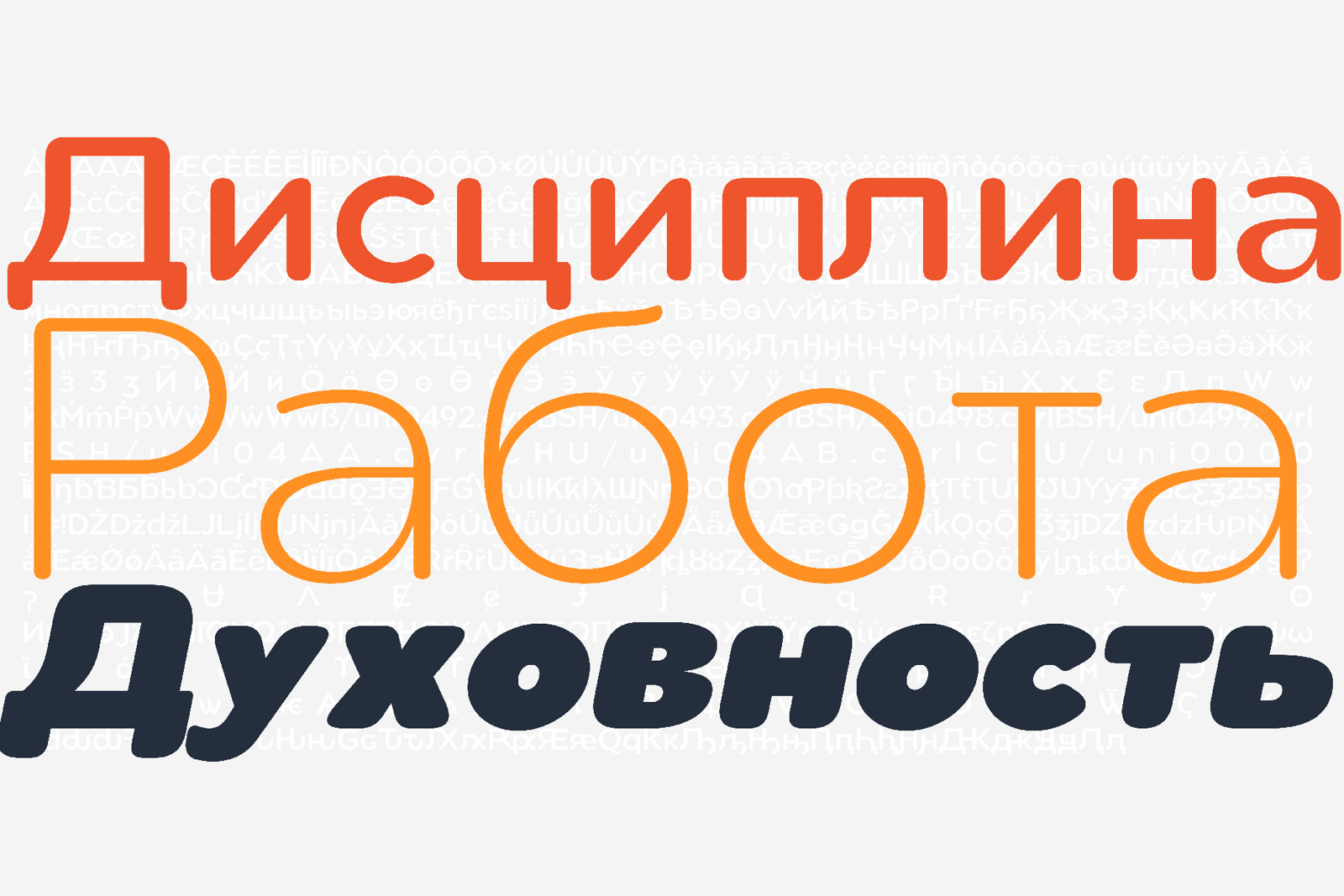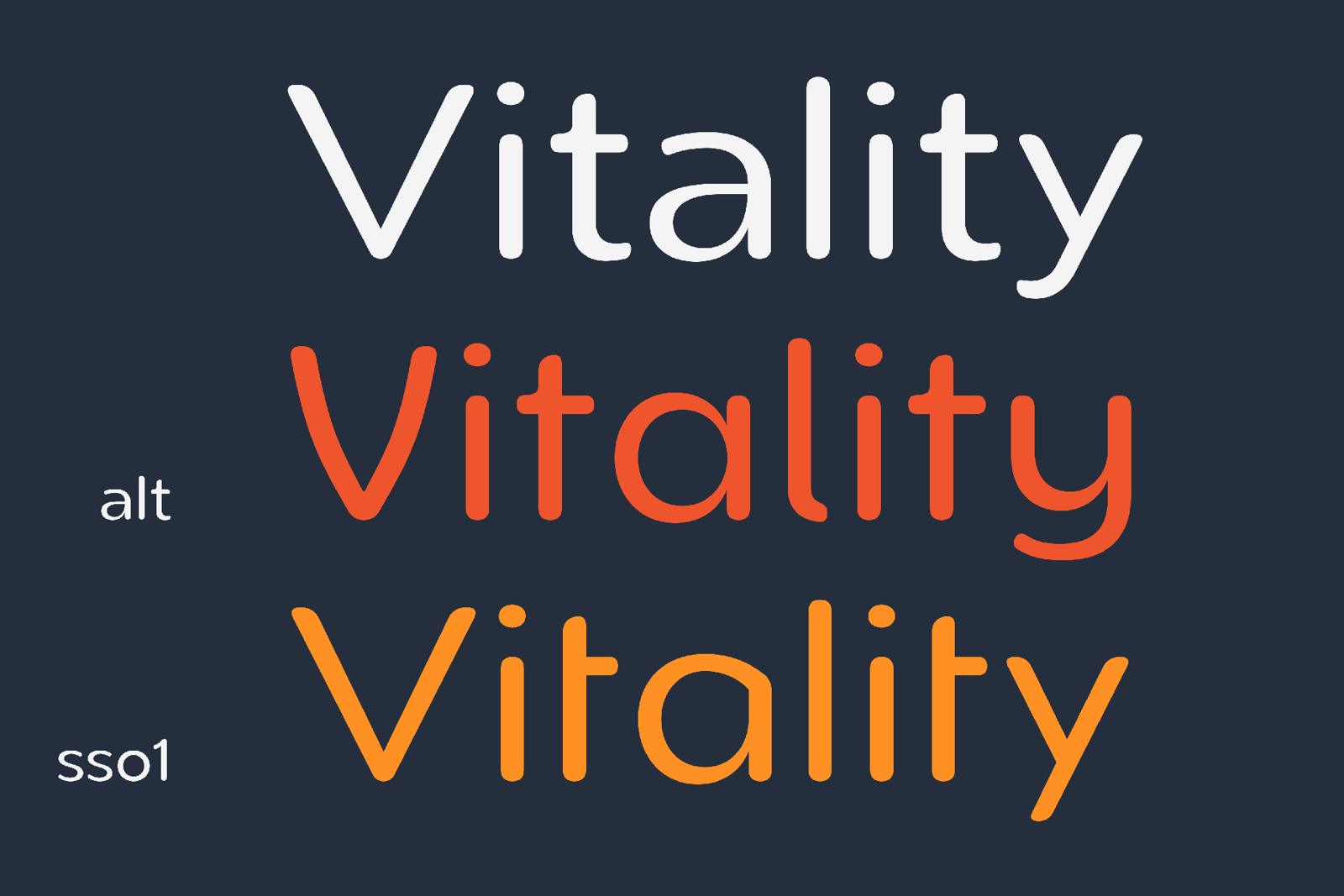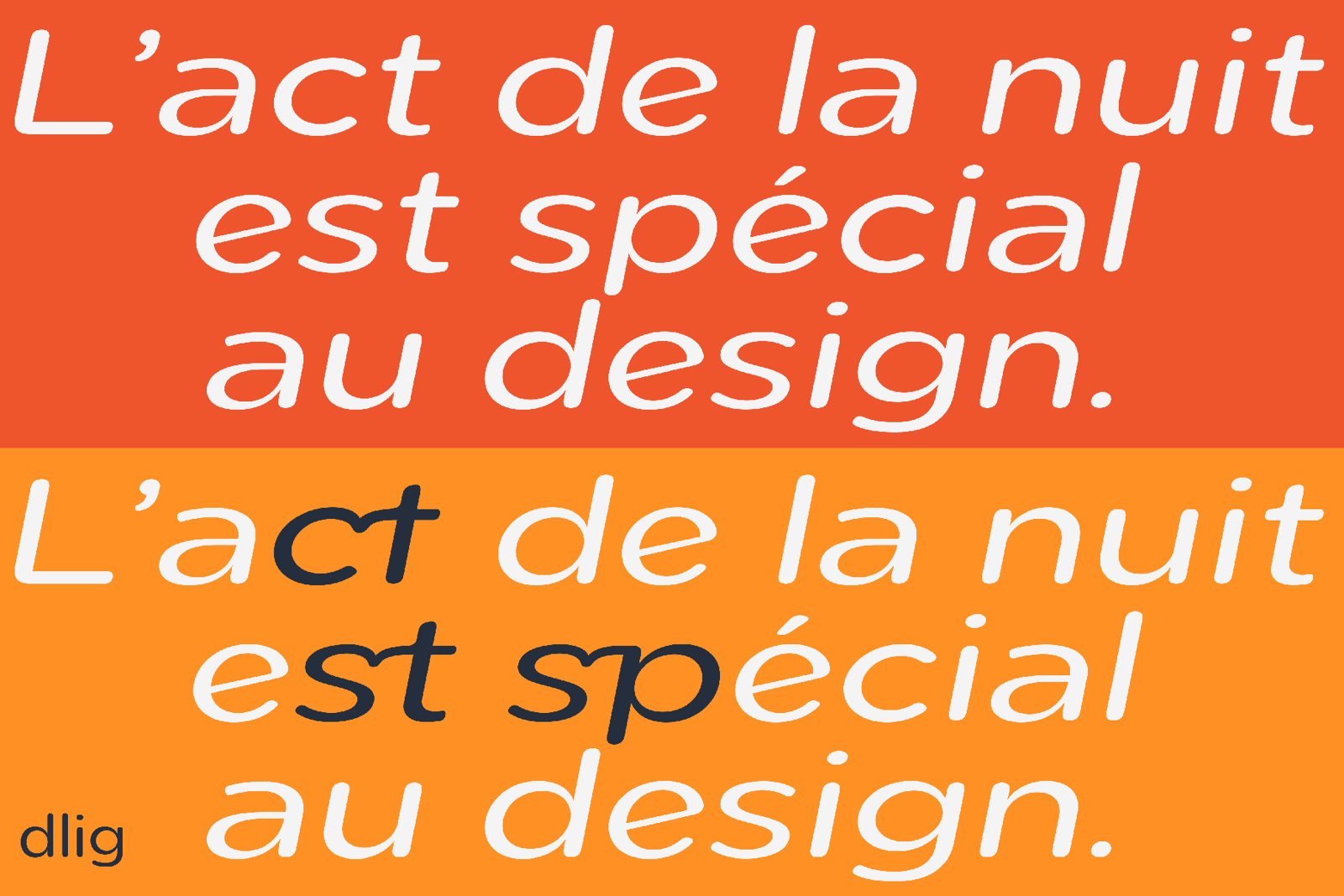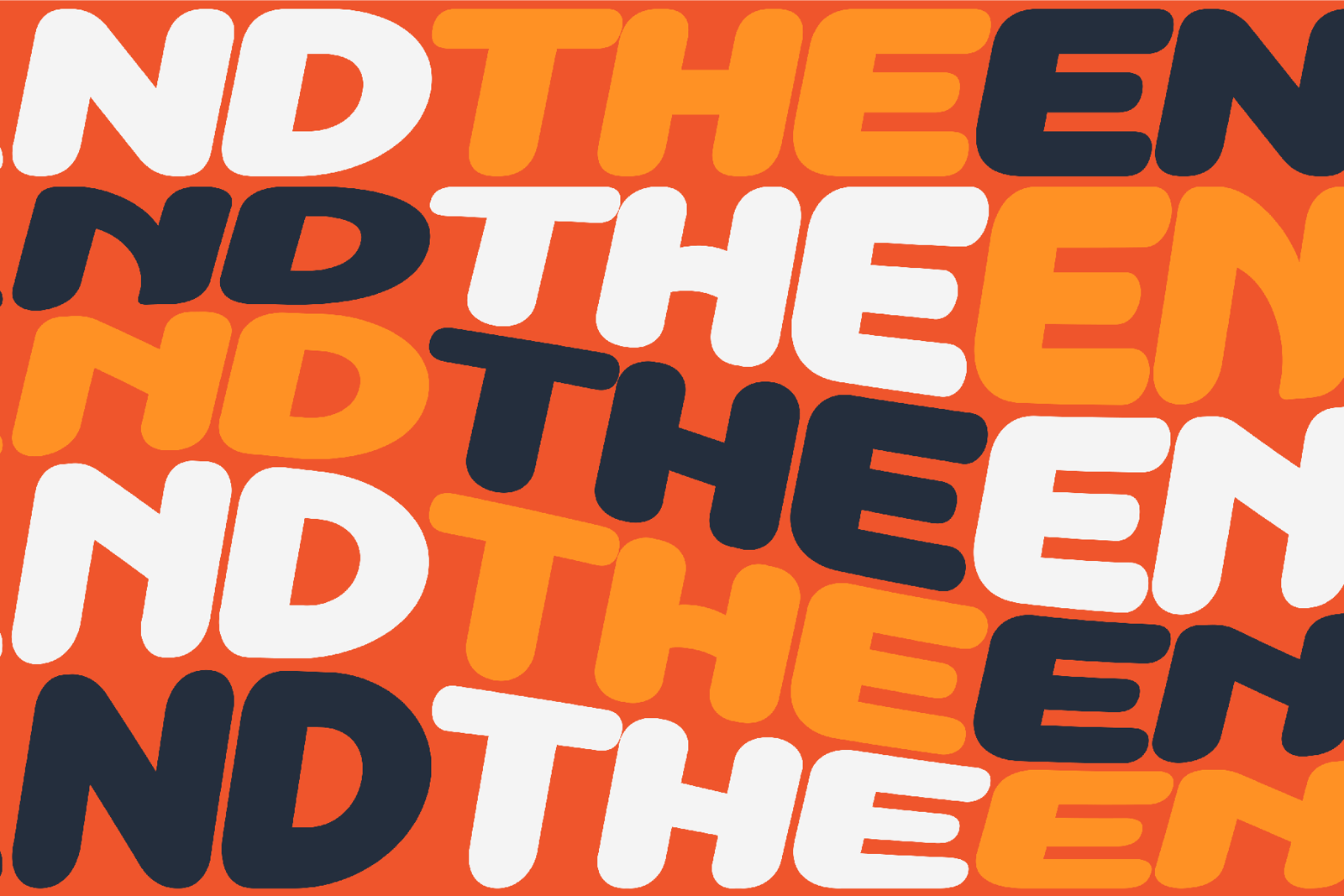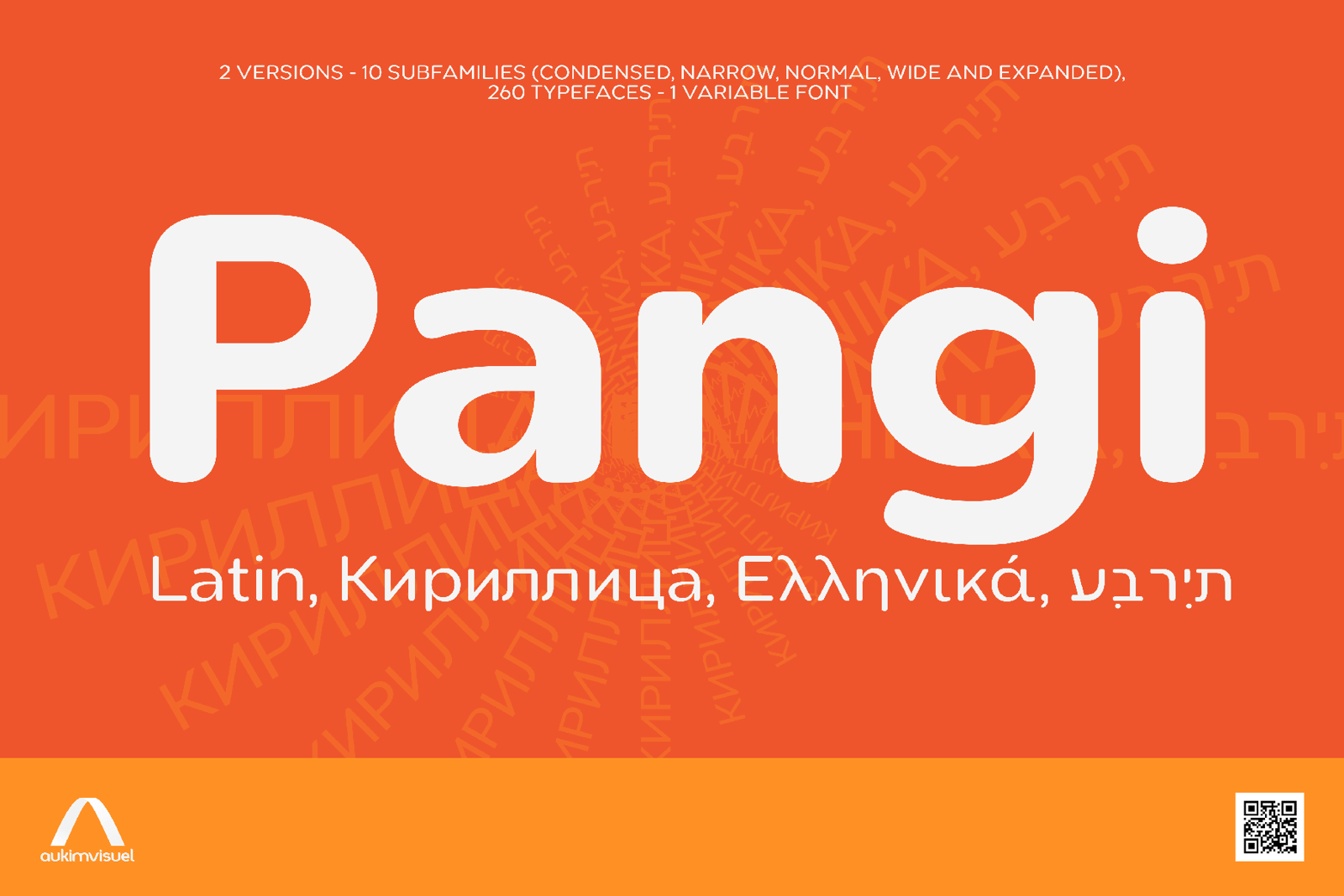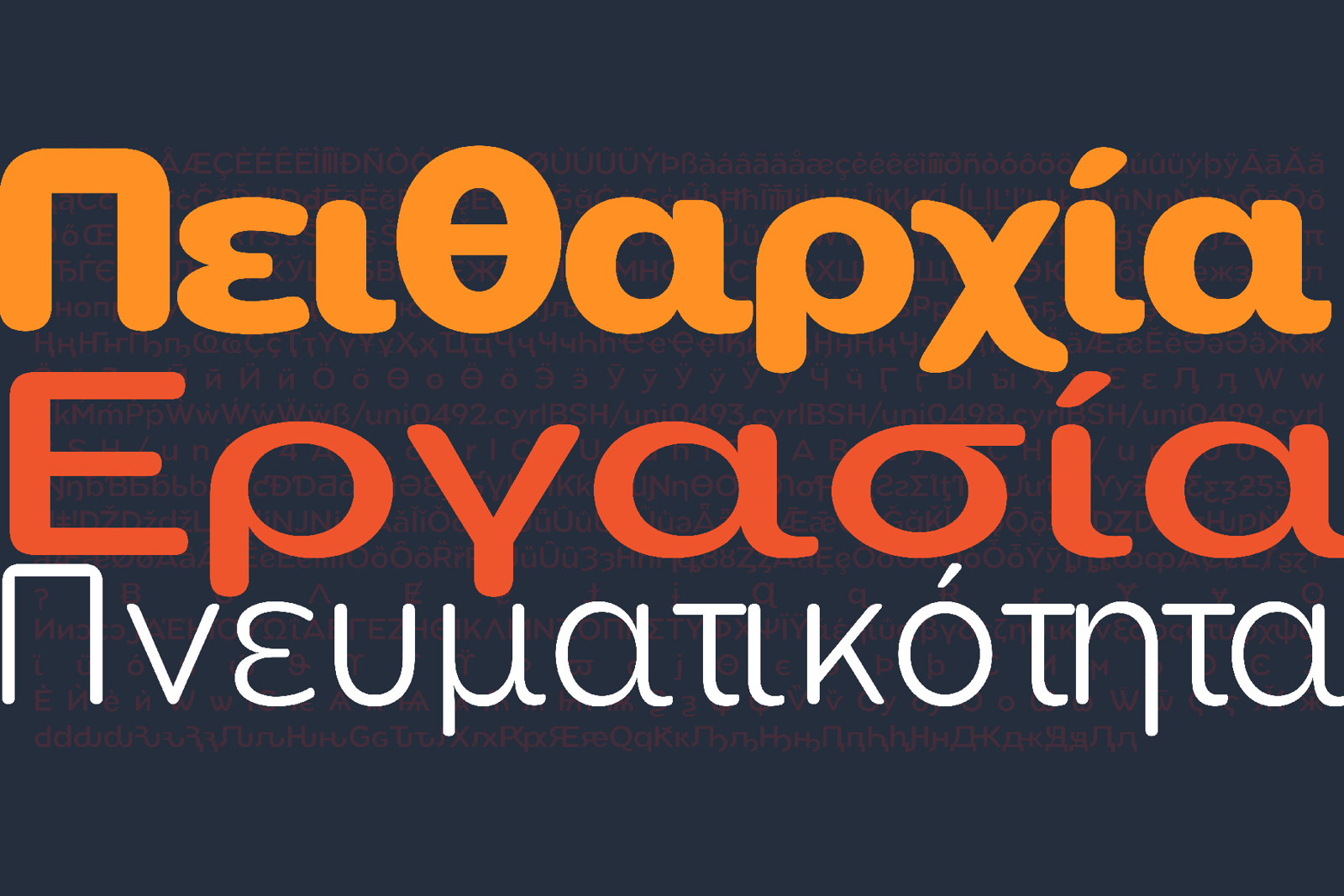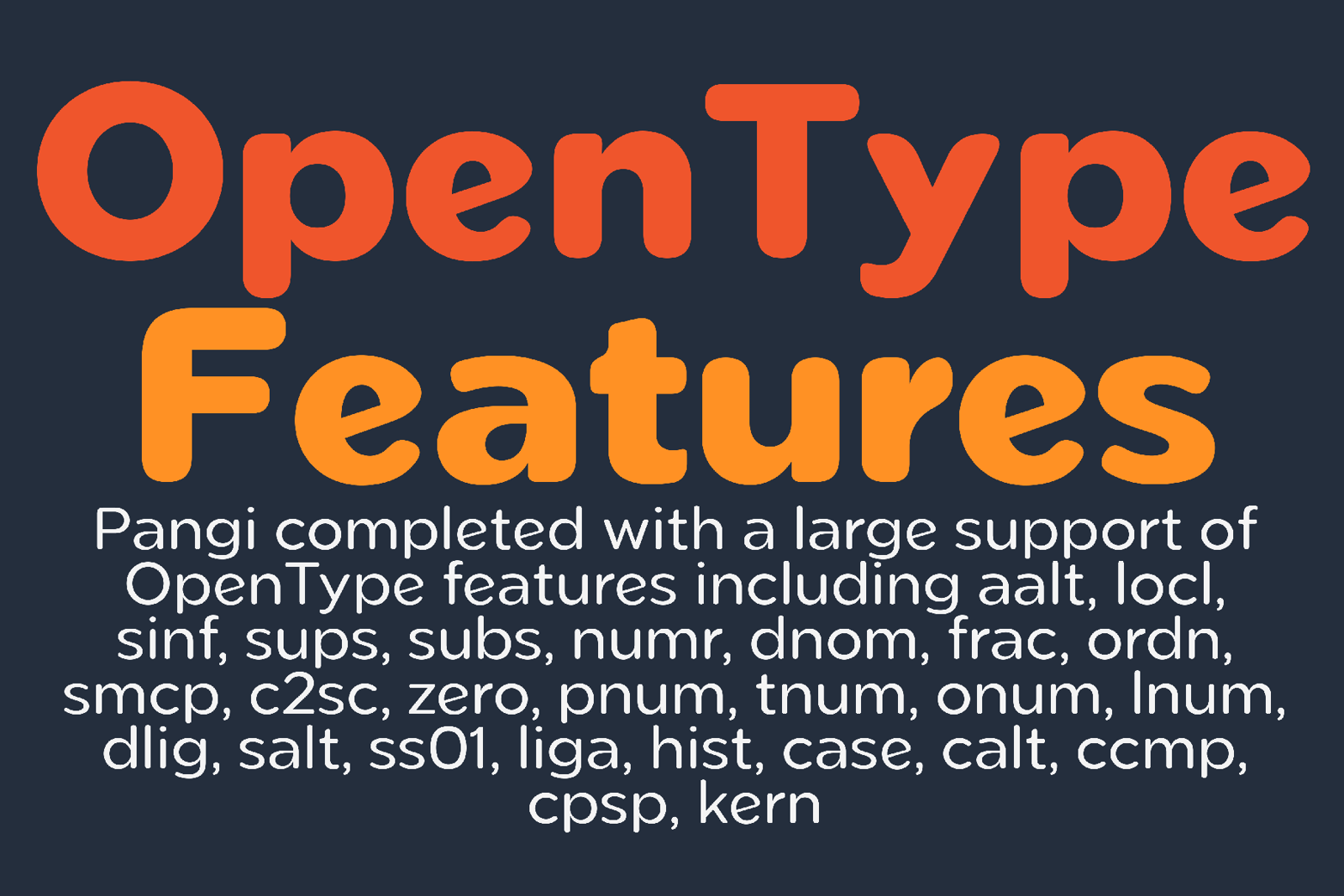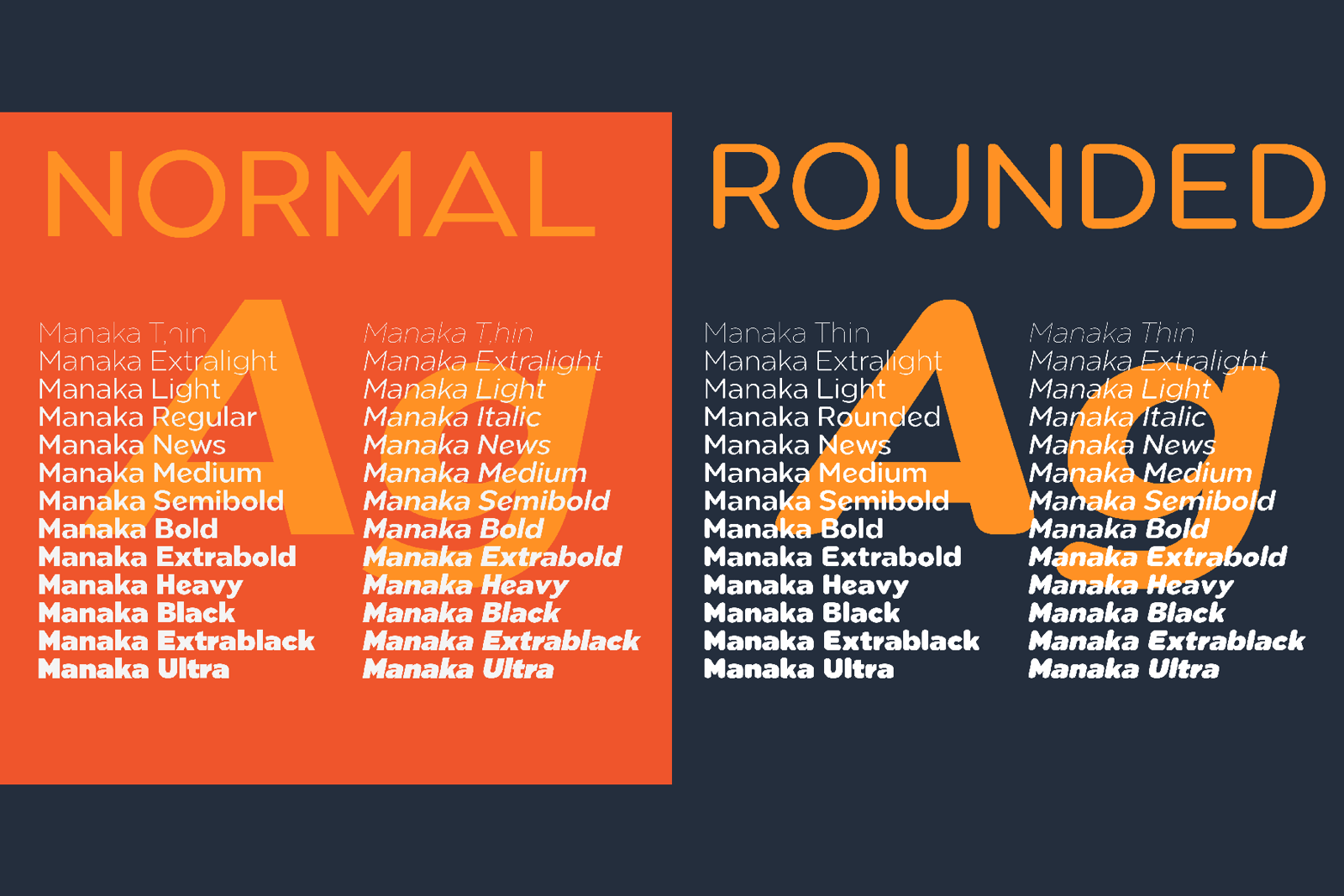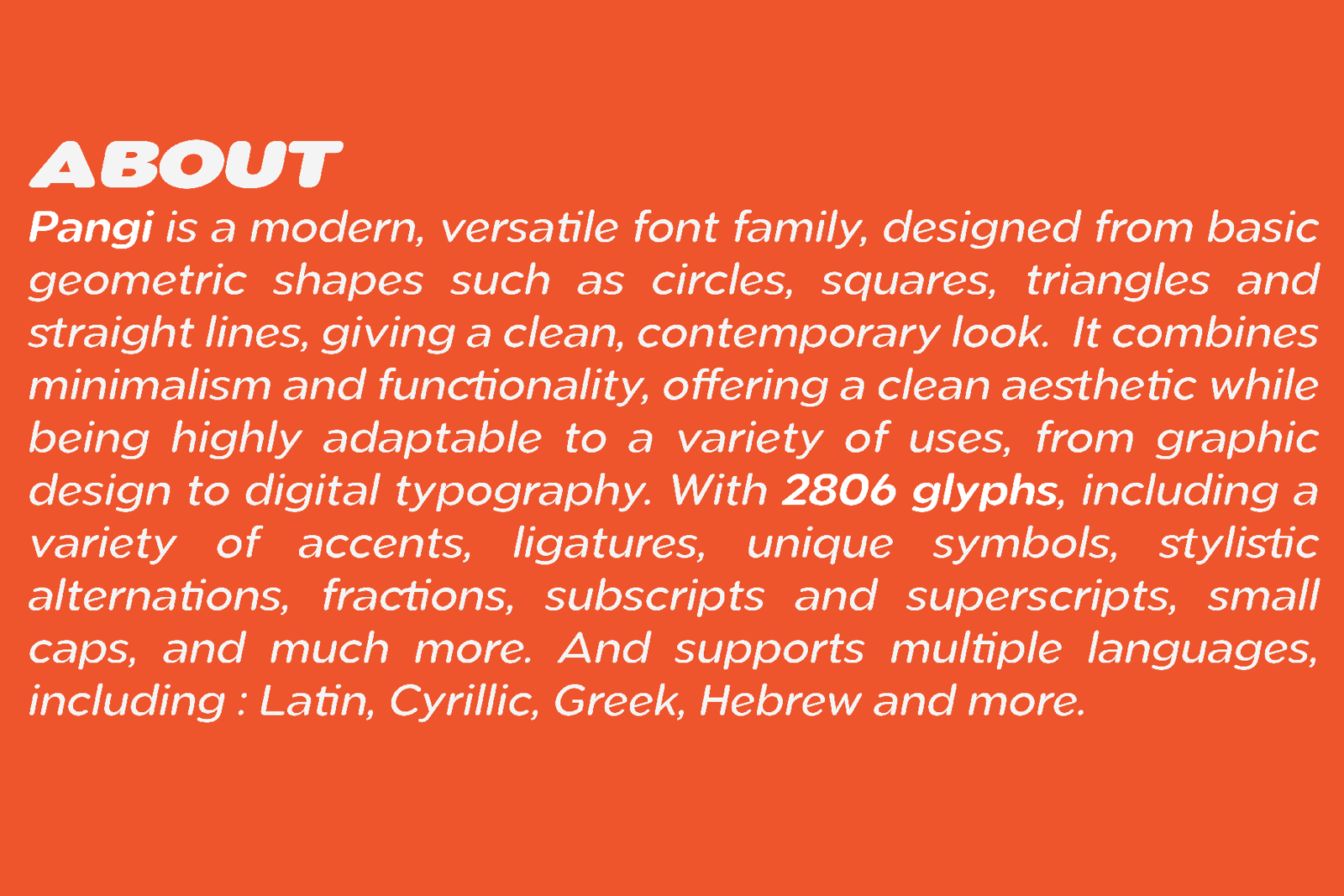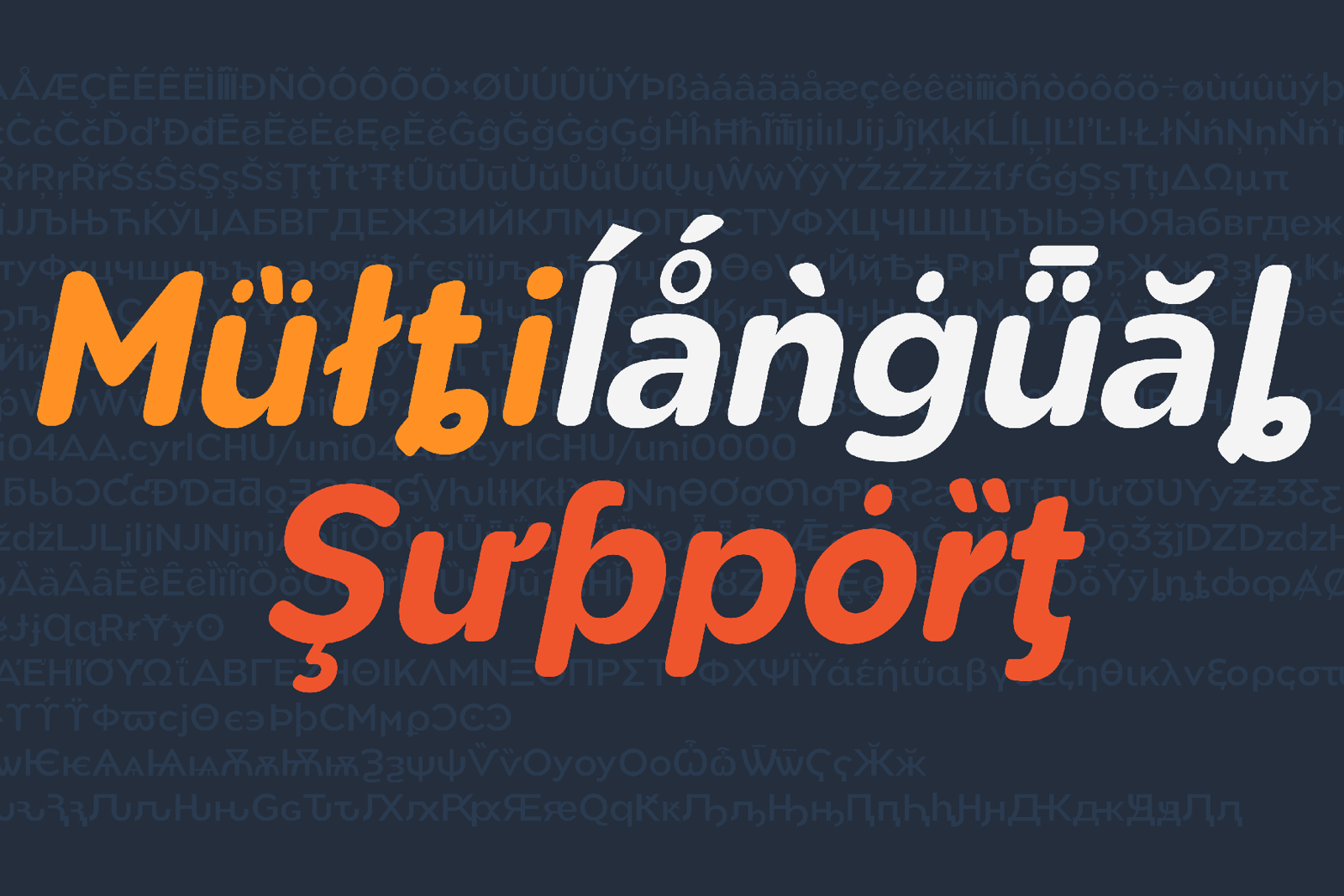
Pangi Rounded Font
Pangi: A Geometric Masterpiece in Typography
Rooted in geometric purity, Pangi is a modern font family designed for versatility and functionality. Its foundation of circles, squares, triangles, and lines harmonizes minimalism and adaptability, making it an invaluable asset for graphic design and digital typography. With an extensive array of uses, Pangi ensures both aesthetic appeal and practical application.
Key Features
Two Versions – Includes basic and rounded styles, spanning 10 subfamilies from condensed to expanded, encompassing 260 fonts and a variable font. It offers 13 weights, each with true italics.
Extensive Glyph Set – Contains 2806 glyphs, featuring a comprehensive range of characters, symbols, and icons for typographic richness.
OpenType Excellence – Offers over 24 OpenType features, such as contextual ligatures and stylistic alternates, enhancing typographic possibilities.
Global Language Support – Capable of supporting numerous languages with Latin alphabets, Cyrillic, Hebrew, Greek, and more.
Applications
Graphic Design – Ideal for modern designs like posters, brochures, and logos.
Web and UI – Ensures clarity and legibility for websites and applications.
Publications – Suitable for both digital and print media, such as books and magazines.
Signage – Effective for signs, maps, and guides.
The Pangi font family emerges from the belief that geometric simplicity can intertwine with linguistic and cultural complexity. It stands as a universal font choice, delivering an elegant visual presence while supporting innovative and advanced design objectives.